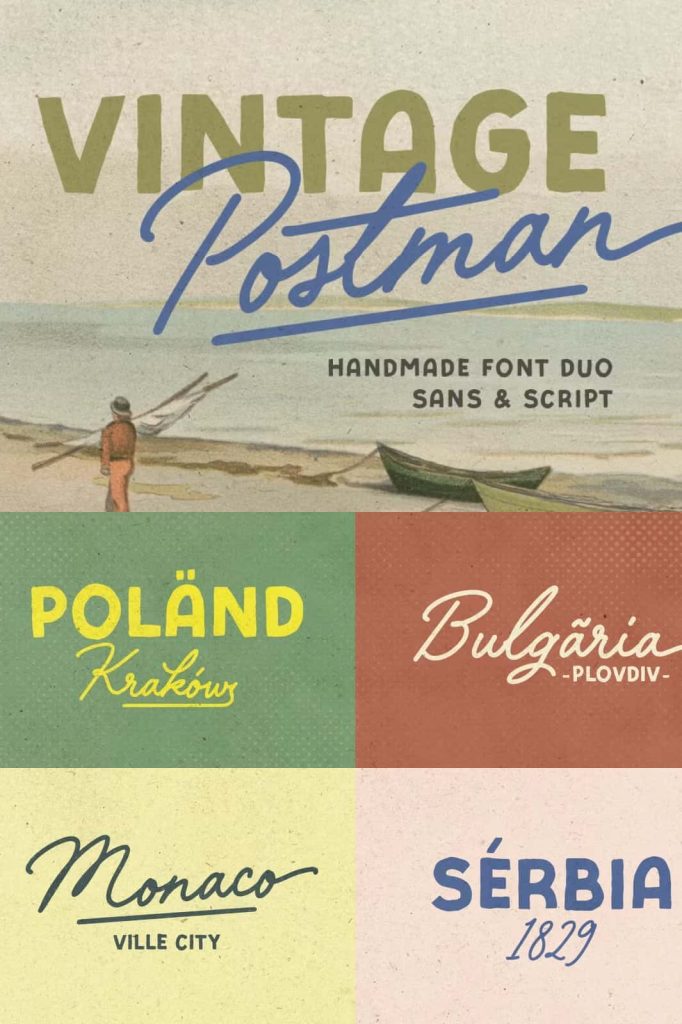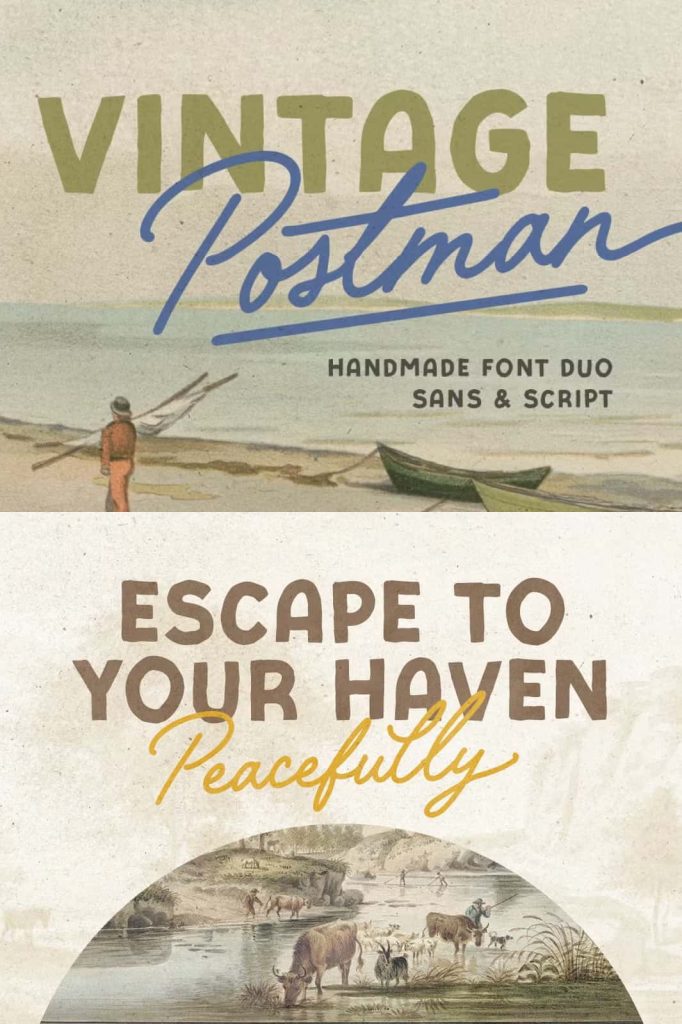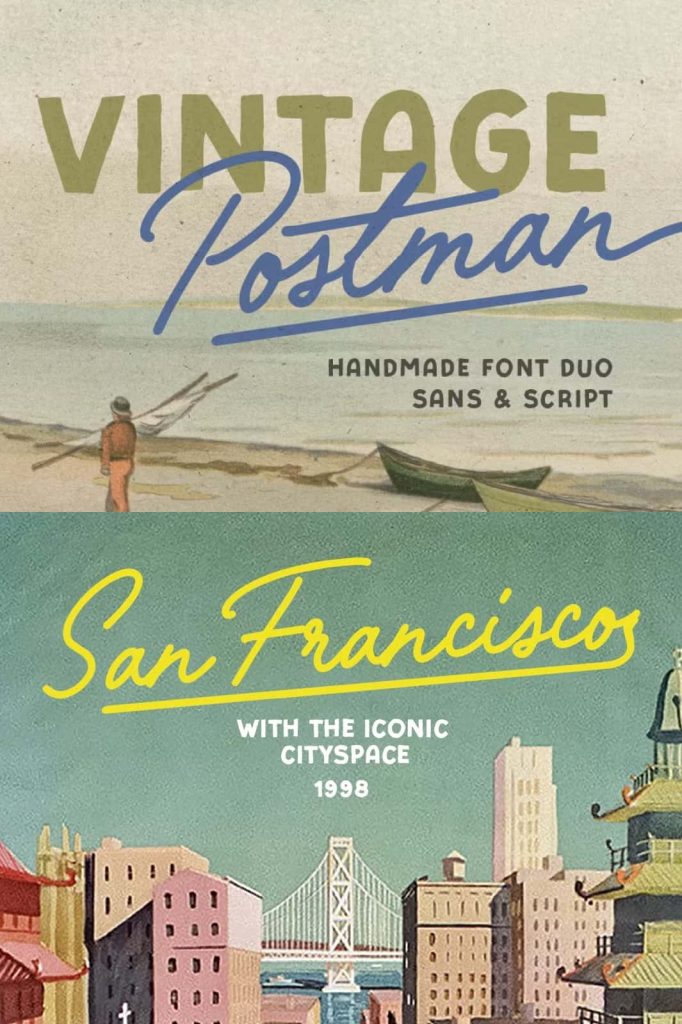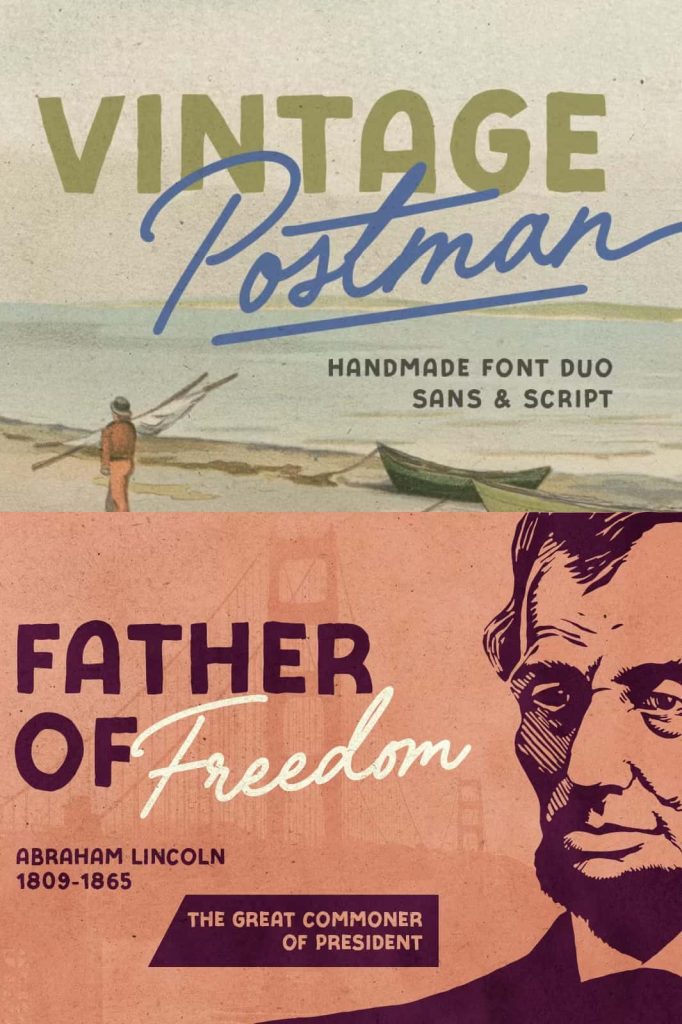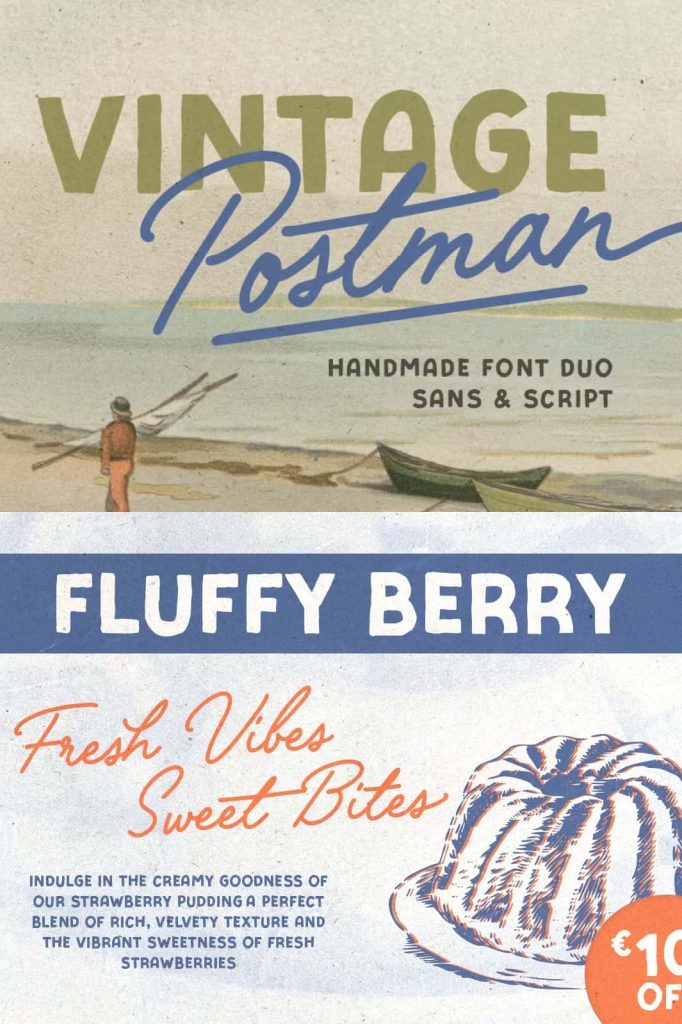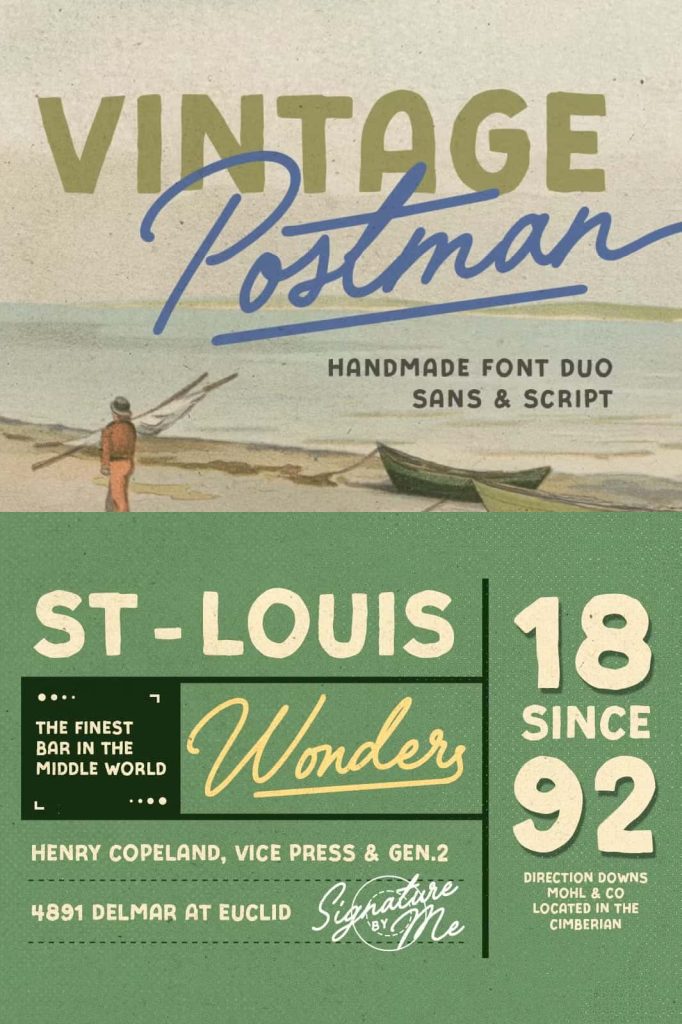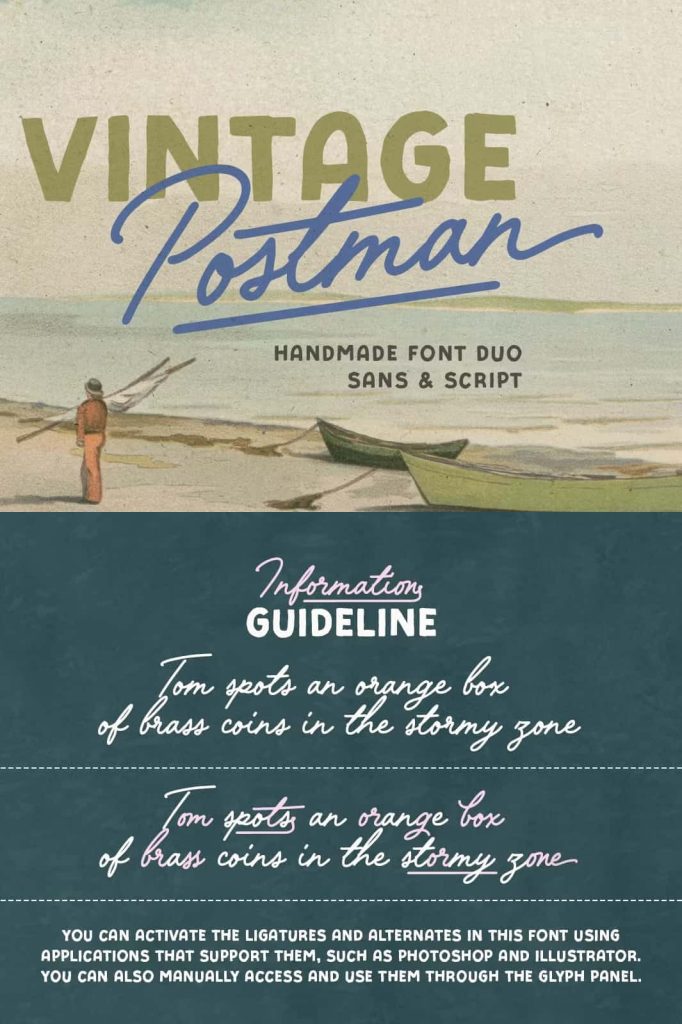
Vintage Postman – Handmade Font Duo
Vintage Postman Handmade Font Duo: Retro Style with Bold Character and Script Elegance
Vintage Postman is a handmade font duo that blends bold sans serif strength with the charm of a monoline script. This unique combination creates a versatile typographic system that brings authentic retro and vintage vibes into modern design projects. Designers who want to capture nostalgia while maintaining clarity and structure will find this font duo highly effective.
The handcrafted nature of Vintage Postman gives every letter a personal and organic feel. It does not rely on perfect uniformity. Instead, it embraces subtle imperfections that add warmth and character. This quality makes it ideal for designs that aim to feel expressive, timeless, and visually engaging.
A Powerful Combination of Bold Sans and Monoline Script
Vintage Postman includes two complementary styles that work seamlessly together. The bold sans serif font provides a strong foundation, while the monoline script adds a decorative and fluid contrast. Designers can use these styles independently or combine them to create layered and dynamic compositions.
The bold sans delivers clarity and impact. It works well for headlines, titles, and key messages that need to stand out. The monoline script introduces elegance and personality, making it perfect for accents, signatures, and creative highlights.
Handmade Aesthetic for Authentic Vintage Feel
The handmade design approach gives Vintage Postman its distinctive identity. Each letter carries a natural flow that reflects traditional hand lettering techniques. This style creates a sense of authenticity that resonates with retro and old-school themes.
Designers can use this aesthetic to build projects that feel nostalgic and genuine. Whether working on a vintage poster or a retro-inspired brand, the font duo enhances the overall mood and storytelling.
Designed for Retro and Vintage Projects
Vintage Postman performs exceptionally well in designs that require a classic and nostalgic atmosphere. Its bold and expressive forms make it suitable for a wide range of creative applications. Designers can use it to create visuals that capture attention while maintaining a cohesive vintage style.
This font duo adapts easily to both print and digital formats. It maintains its character across different sizes and layouts, ensuring consistent results in various design environments.
Perfect for Posters, Logotypes, and Quotes
Vintage Postman shines in poster design, where its bold sans and script combination creates strong visual impact. Designers can build eye-catching compositions that draw attention and communicate messages effectively.
For logotypes, the font duo offers flexibility and uniqueness. The bold sans provides structure, while the script adds a signature-like quality. This combination helps create memorable and distinctive brand marks.
In quote designs, the script font enhances readability while adding a personal touch. Designers can highlight key words or phrases to create visually appealing typographic layouts.
Advanced Features for Creative Flexibility
Vintage Postman includes a variety of features that expand its creative potential. These features allow designers to customize their typography and achieve more refined results. The font duo supports a wide range of stylistic options that enhance both functionality and aesthetics.
Alternates and Ligatures for Unique Typography
The inclusion of alternate characters gives designers more options to experiment with different letterforms. These alternates help create variation and prevent repetitive patterns in text. Designers can mix and match characters to achieve a more natural and handcrafted look.
Ligatures improve the connection between letters, especially in the script style. They create smoother transitions and enhance the overall flow of the text. This feature adds a professional and polished touch to any design.
Decorative Lines for Enhanced Visual Appeal
The script font also includes decorative lines that allow designers to add extra detail to their compositions. These lines can frame text, underline words, or create ornamental elements that enrich the design.
By using these features, designers can elevate simple typography into a more expressive and visually engaging composition. The additional elements provide more opportunities for creativity and customization.
Versatility Across Branding and Creative Design
Vintage Postman adapts easily to various design needs. It works well in branding projects, packaging design, social media graphics, and more. Its retro aesthetic makes it particularly effective for businesses and creatives who want to evoke a sense of nostalgia and authenticity.
The combination of bold and script styles allows designers to create balanced compositions that feel both structured and expressive. This versatility makes Vintage Postman a valuable addition to any designer’s toolkit.
Conclusion
Vintage Postman handmade font duo offers a perfect blend of bold sans serif strength and monoline script elegance. Its handcrafted style, combined with features like alternates, ligatures, and decorative lines, provides designers with the tools to create compelling retro and vintage designs. Whether used for posters, logotypes, quotes, or branding, Vintage Postman delivers a distinctive and timeless typographic experience.